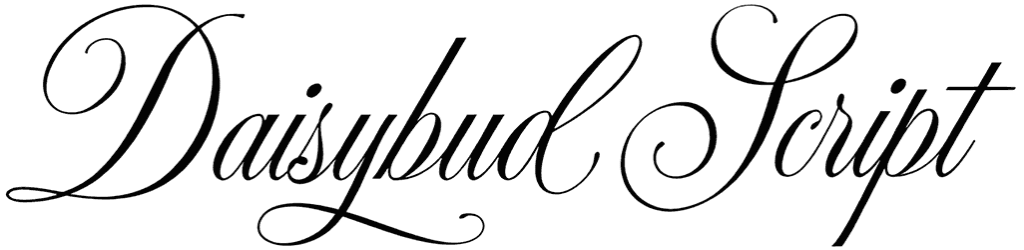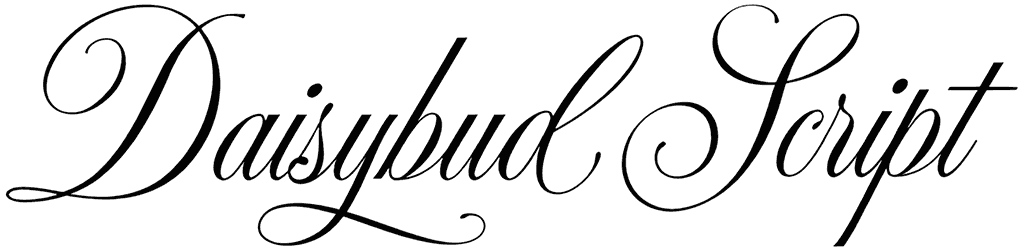
Daisybud Script Font
Daisybud Script font feels like the kind of handwriting you save for something sweet, personal, and a little bit dreamy. Its flowing strokes give your words a soft decorative rhythm, not too formal and not too messy, which makes this calligraphy font lovely for designs that need warmth without turning into another overdone script headline.
You can use Daisybud Script for bakery logos, wedding tags, thank-you cards, candle labels, baby shower invites, quote prints, boutique packaging, or a cute café board. Add floral illustrations, pastel colors, or kraft paper textures, and suddenly the whole design feels handmade in the best way.
The font has an fine, airy feel and with long, flowy connections, created for delicate headlines, a intricate logotypes or a custom invitation card for a beautiful event.